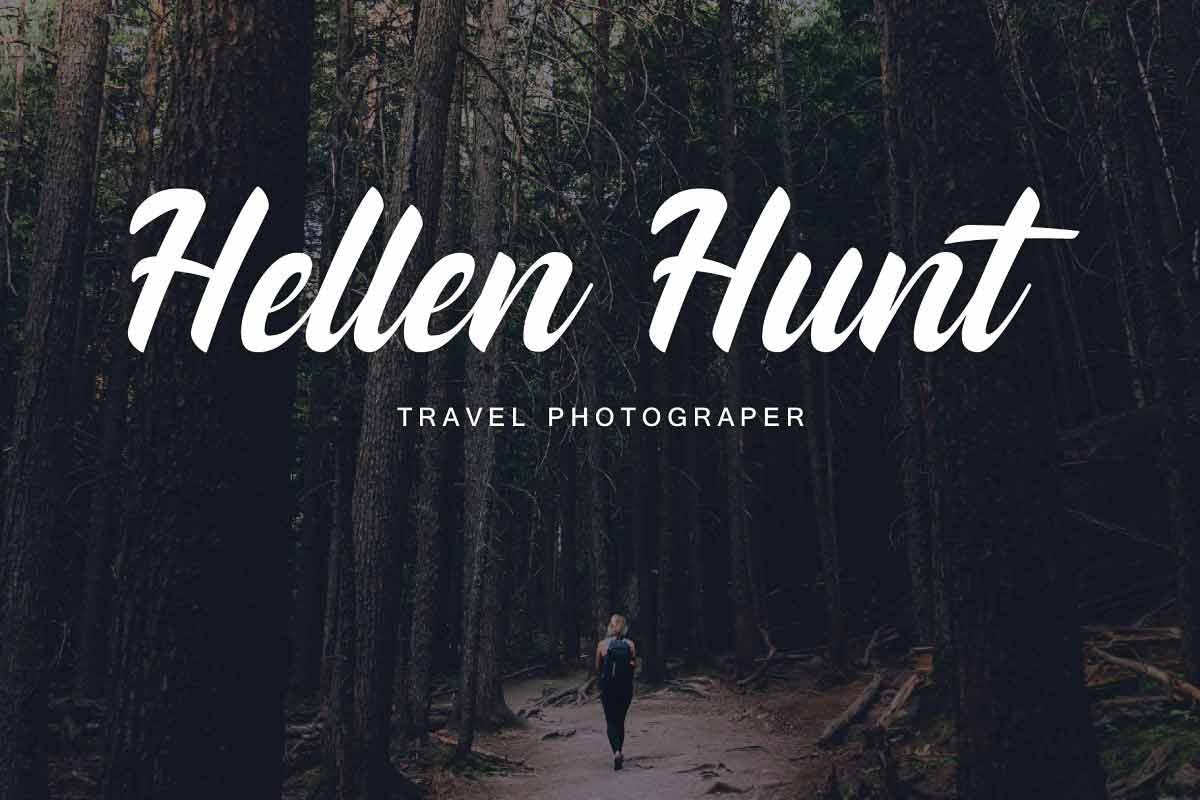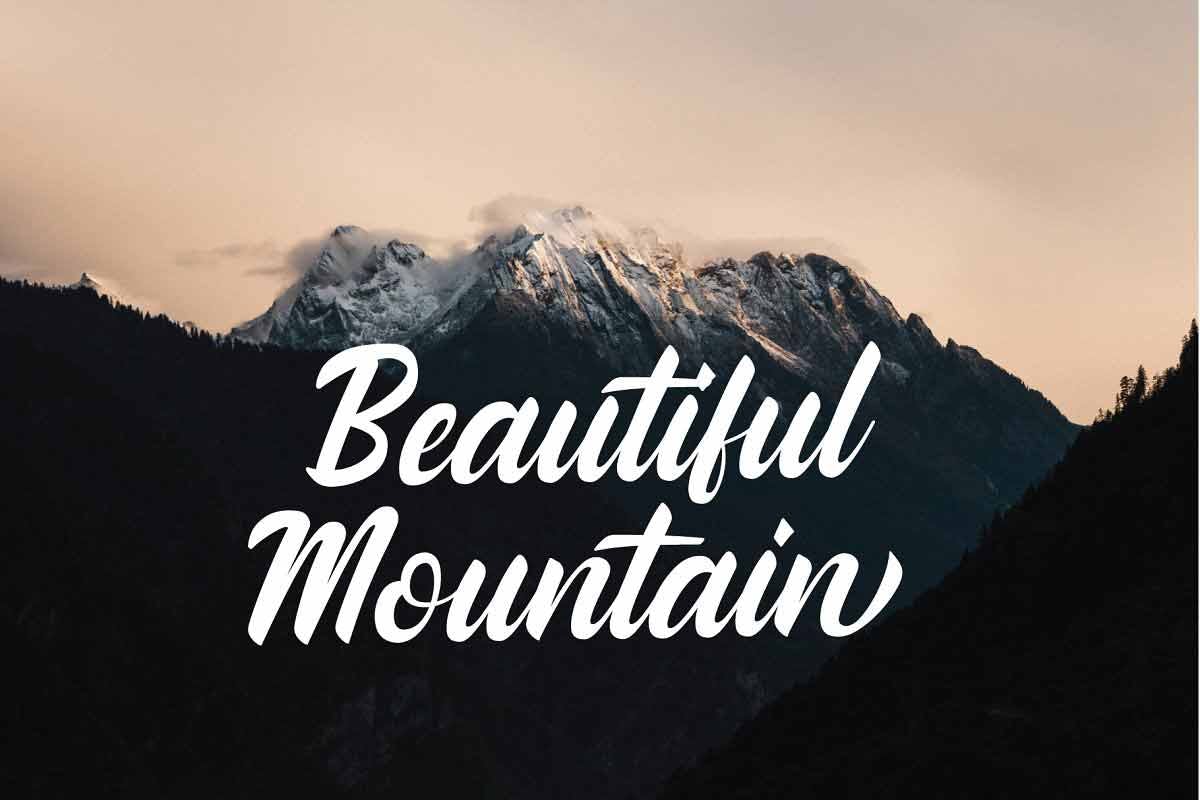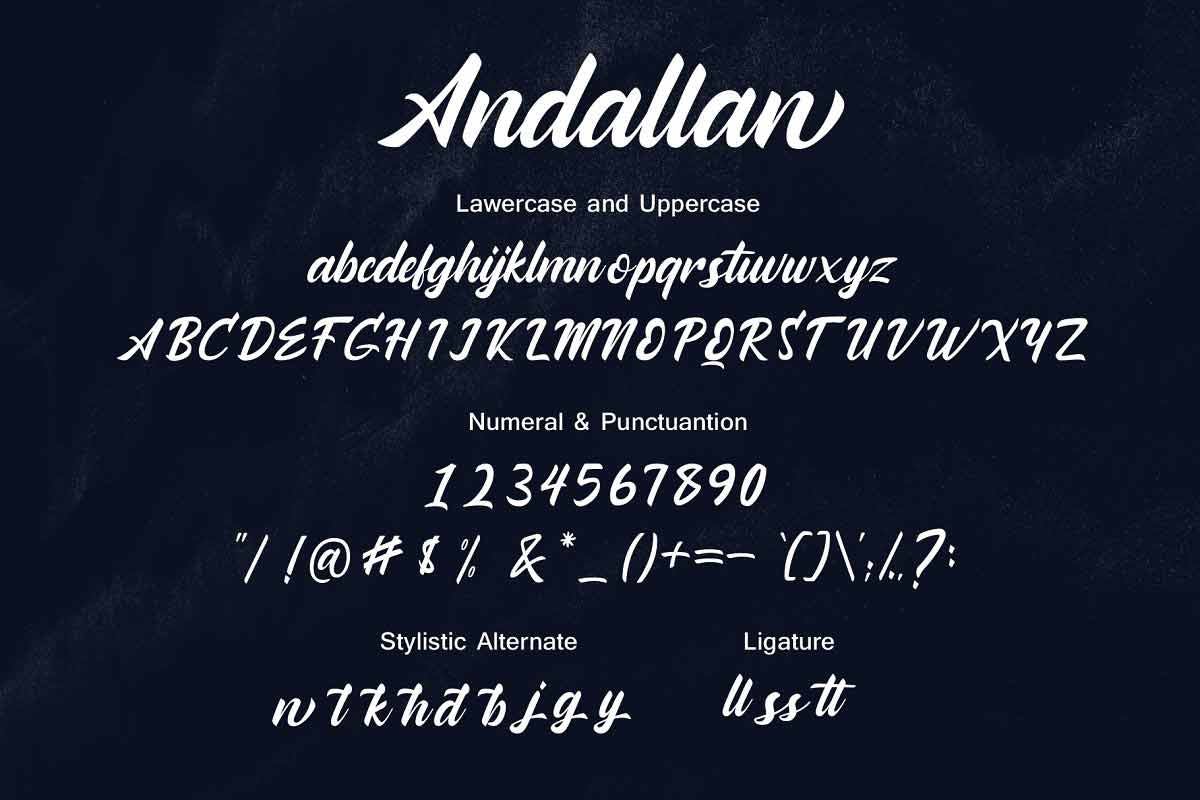
Free Demo Andallan Script Font
Hello There! Introducing an amazing script font, it is Free Demo Andallan Script Font. It is a stylish script font character, it stands strong for any kind of your projects. But, it very matches for an outdoor project, on the other hand, this font is good for your all projects such as business cards, merchandise, logo, t-shirt, and more. This awesome stylish free font is ready for the OTF format file, but you only get one type with a personal license. You can get more by purchasing the premium version.